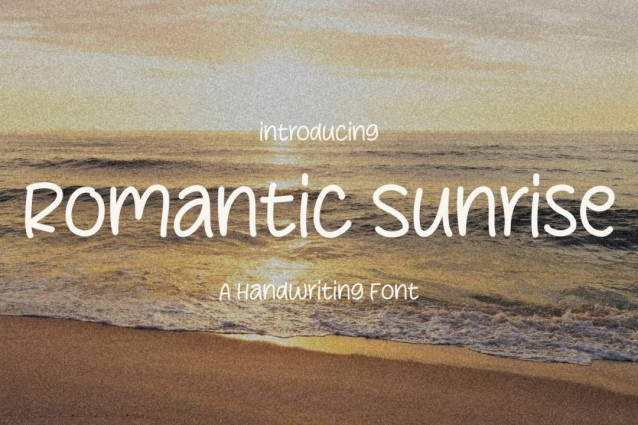
Romantic Sunrise Font
Romantic Sunrise Font is a simple and friendly handwritten font. Its natural and unique style makes it incredibly fitting to a large pool of designs. The only limit is your imagination!